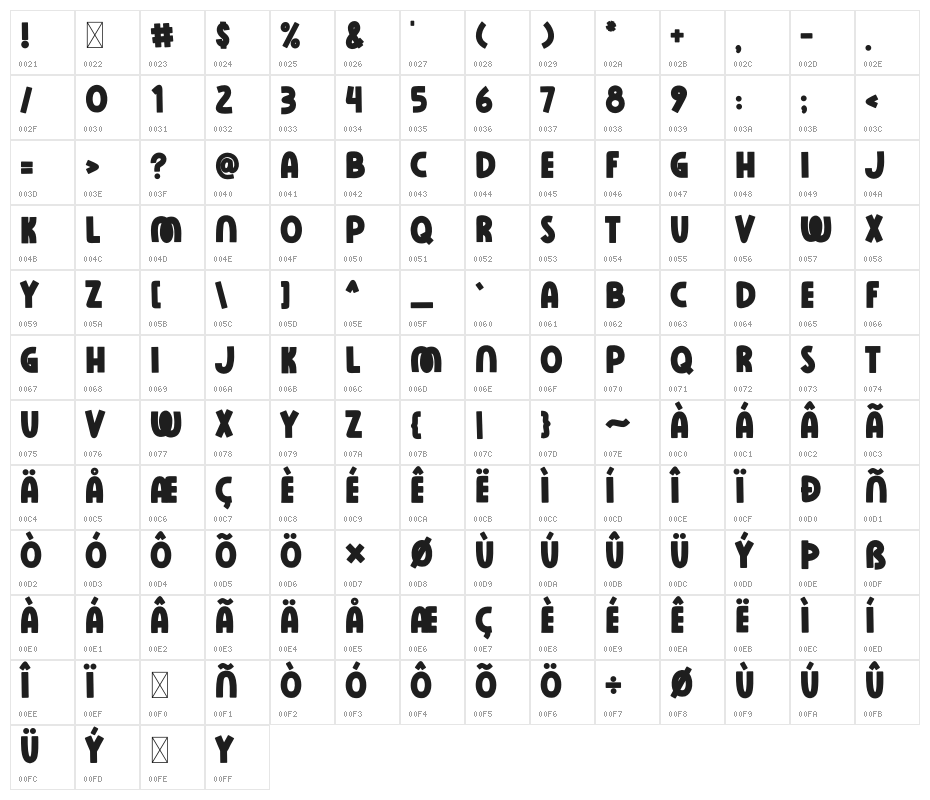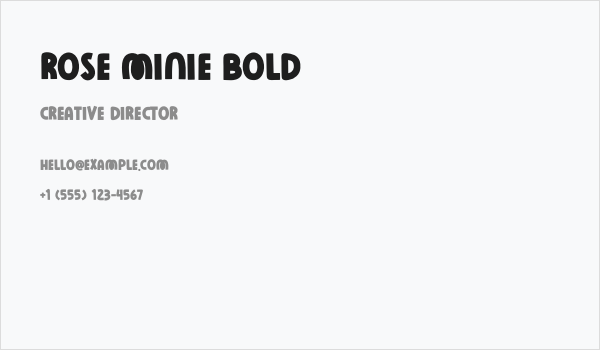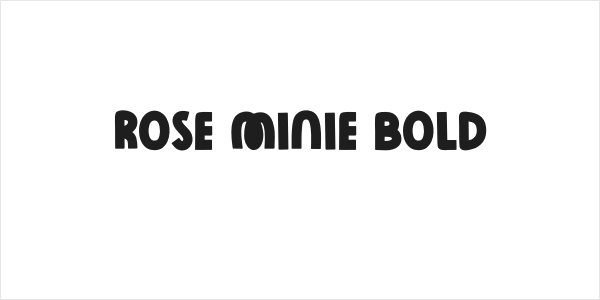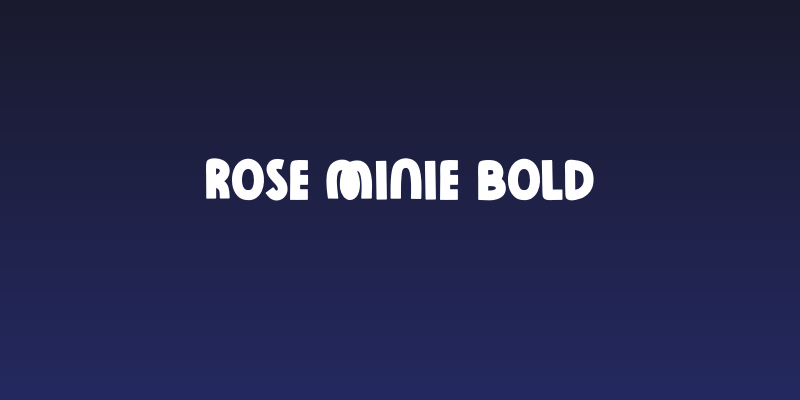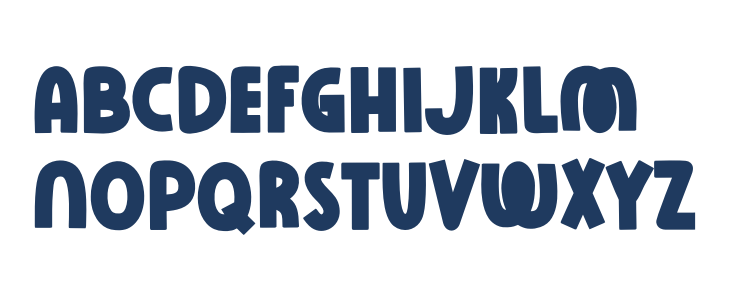
Rose Minie Bold Font
Rose Minie Bold Description
This font features bold, rounded characters with a playful and whimsical design. The letters are thick and uniform, creating a strong visual impact. The rounded edges and consistent stroke width give it a friendly and approachable feel, making it ideal for projects that require a fun and engaging aesthetic. The numerals and special characters maintain the same bold and rounded style, ensuring consistency across all text elements. This font is particularly suited for creative and informal applications where a sense of fun and boldness is desired.
| Proposed Projects | Ideal for children's books, playful branding, posters, and creative advertising. |